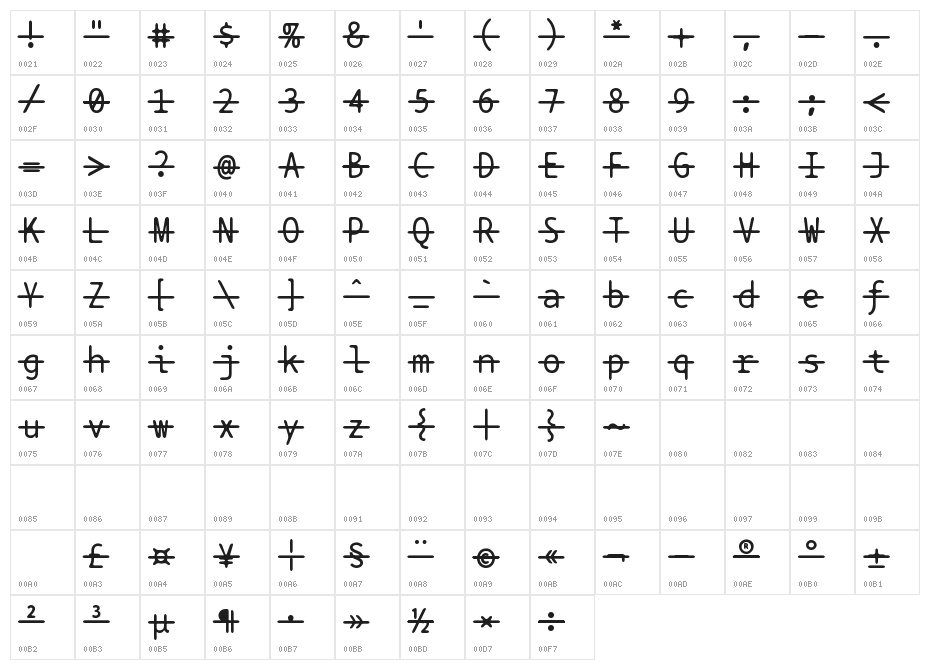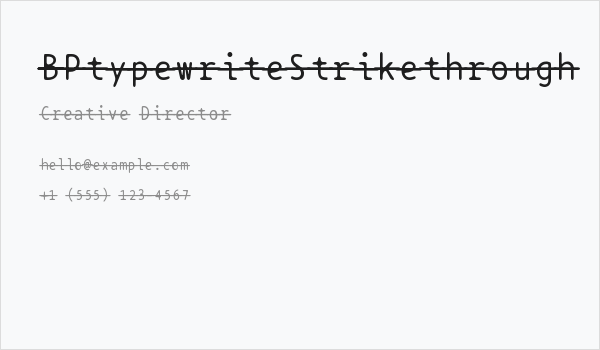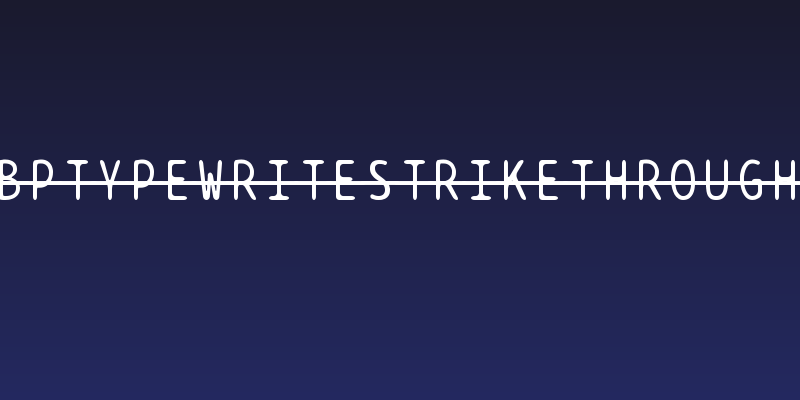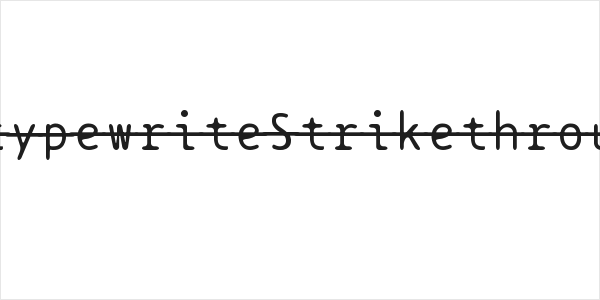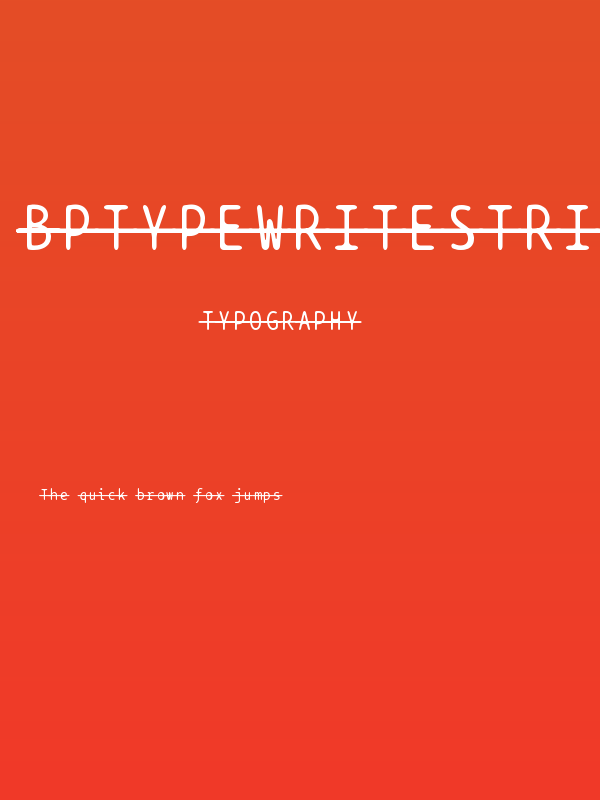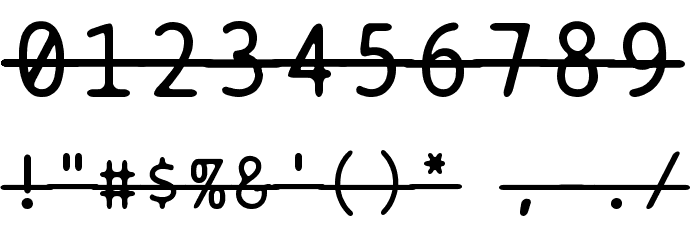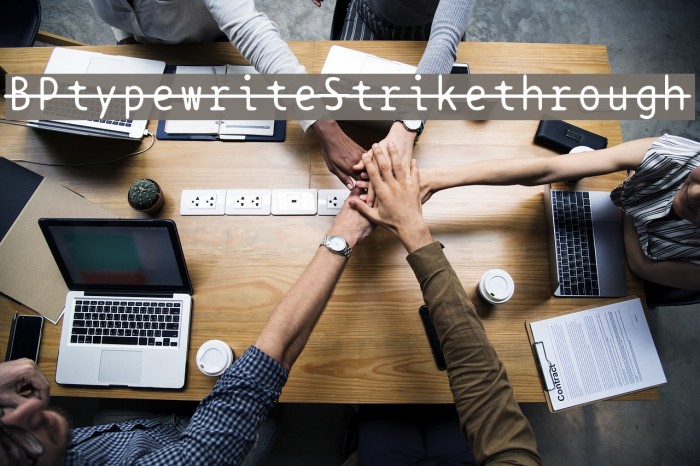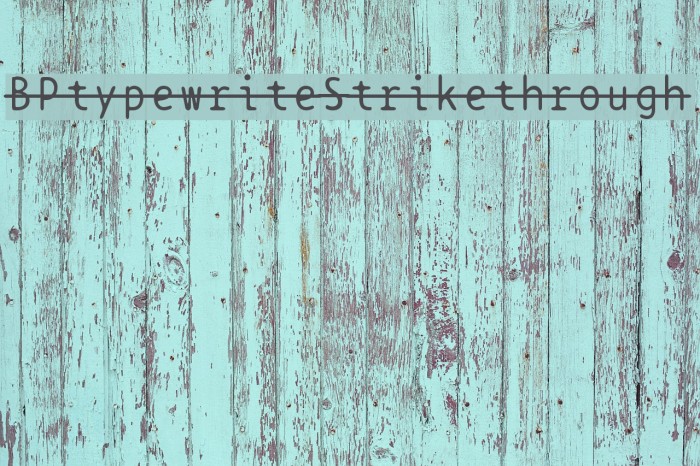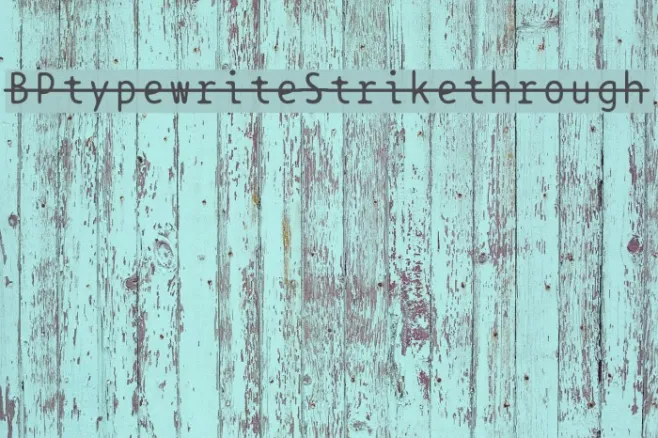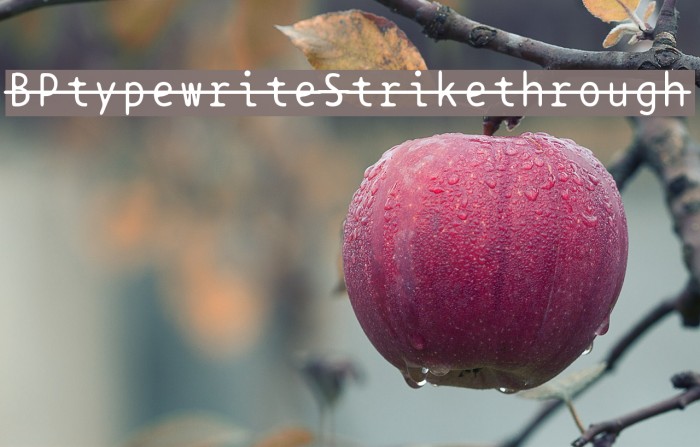
BPtypewriteStrikethrough Font
BPtypewriteStrikethrough Description
This font features a distinctive typewriter style with a unique strikethrough effect applied to each character. The letters are monospaced, giving it a classic typewriter appearance, while the strikethrough adds a modern, edgy twist. The characters are clean and legible, with rounded edges that soften the overall look. This combination of vintage and contemporary elements makes it versatile for various design projects. The numerals and special characters maintain the same style, ensuring consistency across all text elements.